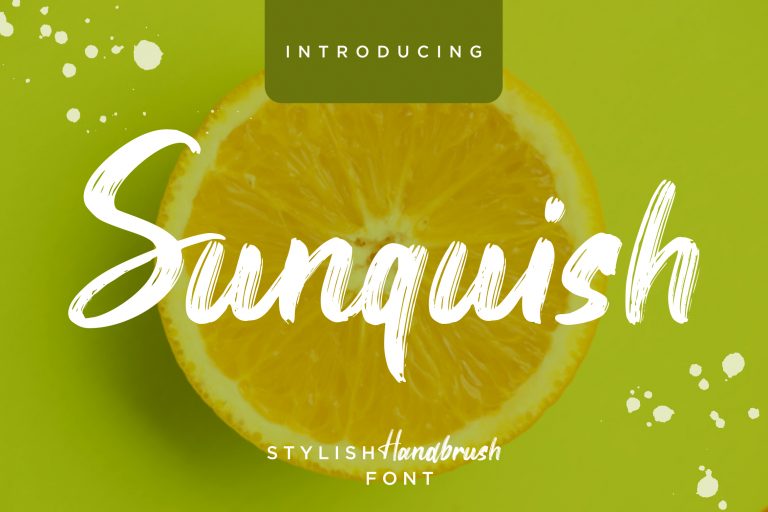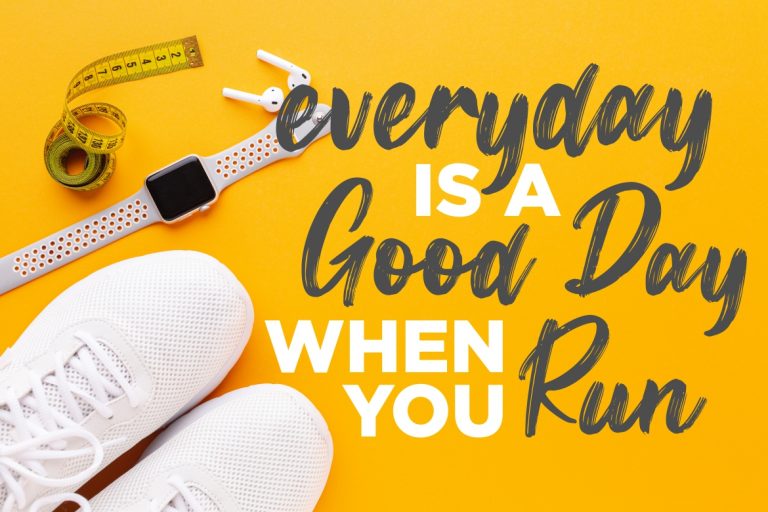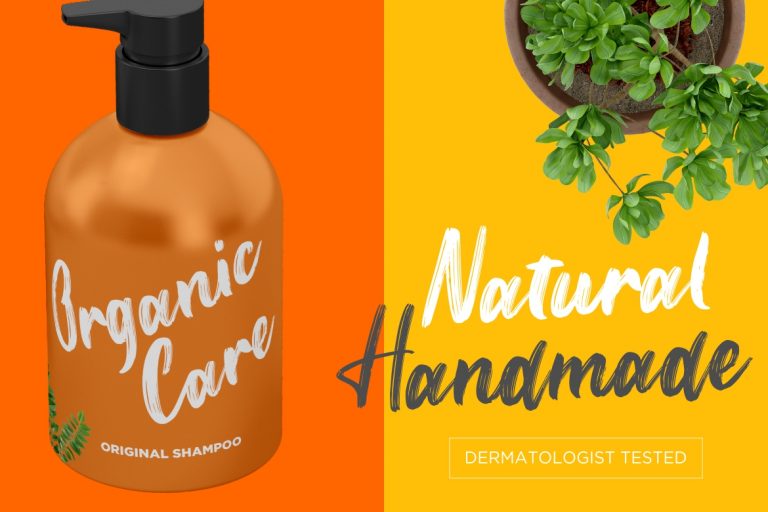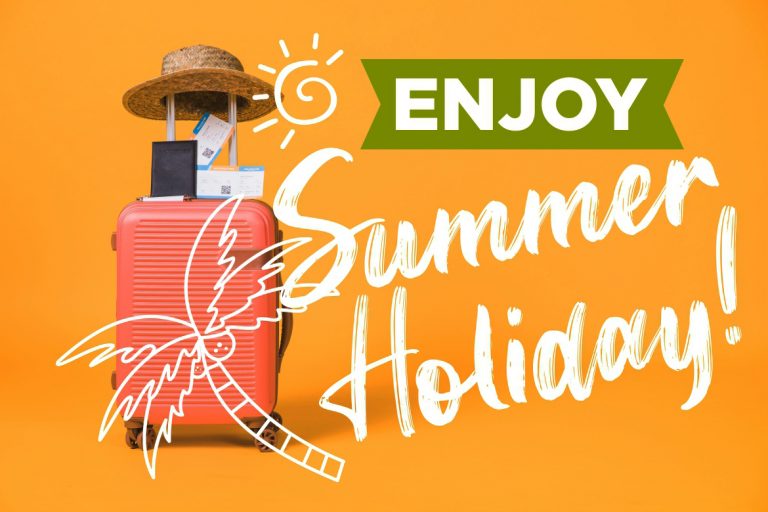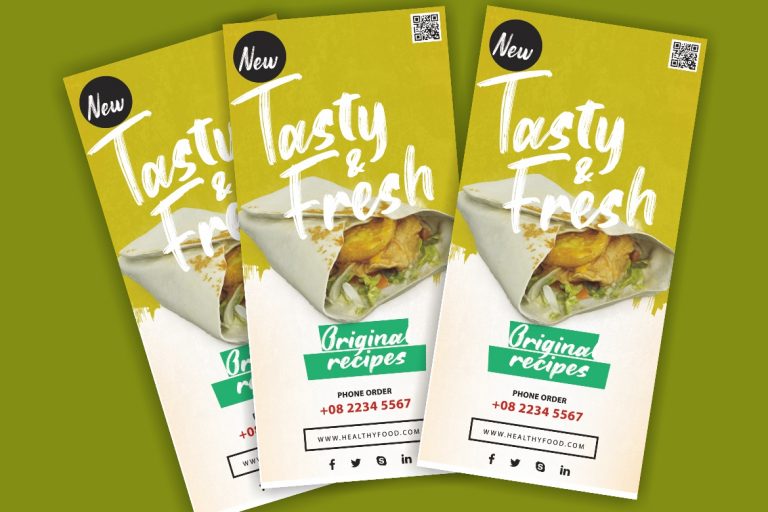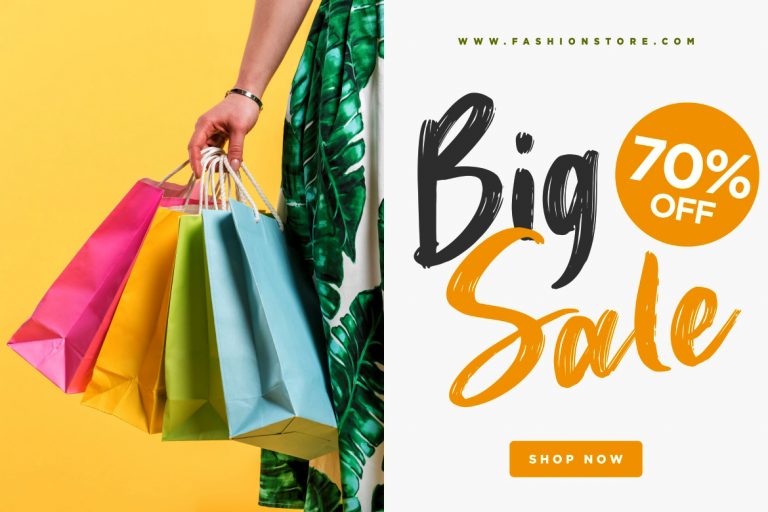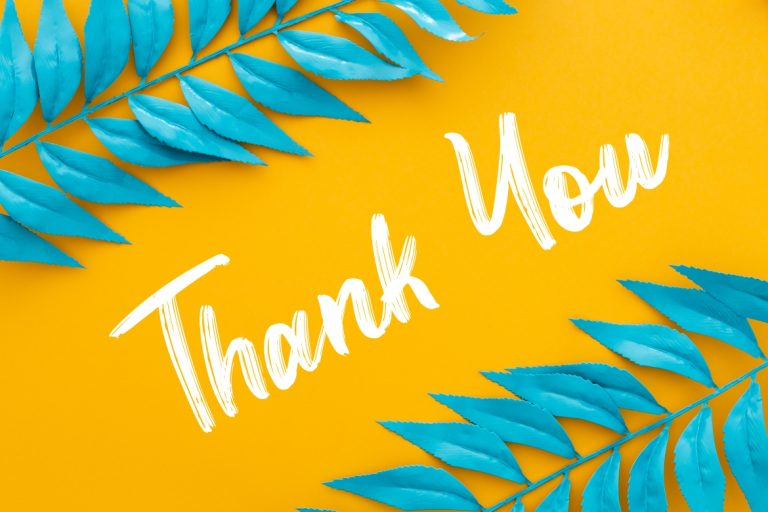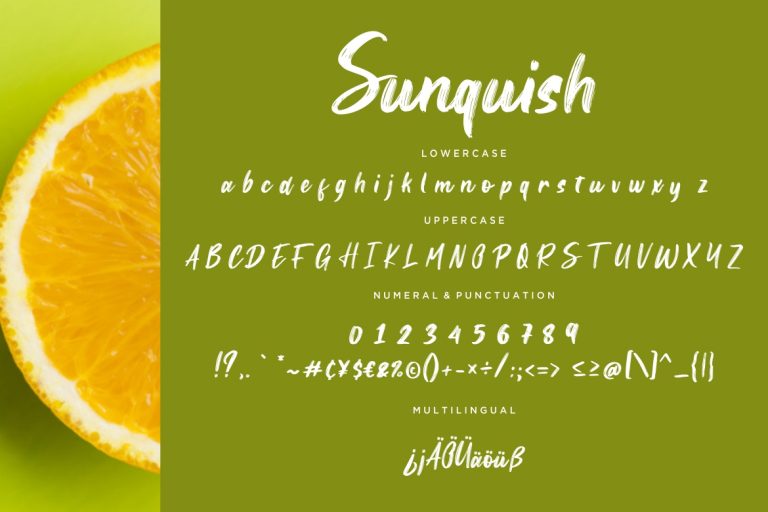
Sunquish is a fresh stylish hand brush font with natural movement will make your latest project looks awesome.
Sunquish is perfect for branding projects, logo, wedding designs, social media posts, advertisements, product packaging, product designs, label, photography, watermark, invitation, stationery and any projects that need handwriting taste.
• Fonts include multilingual support for; ä ö ü Ä Ö Ü ß ¿ ¡
Sunquish Stylish Handbrush